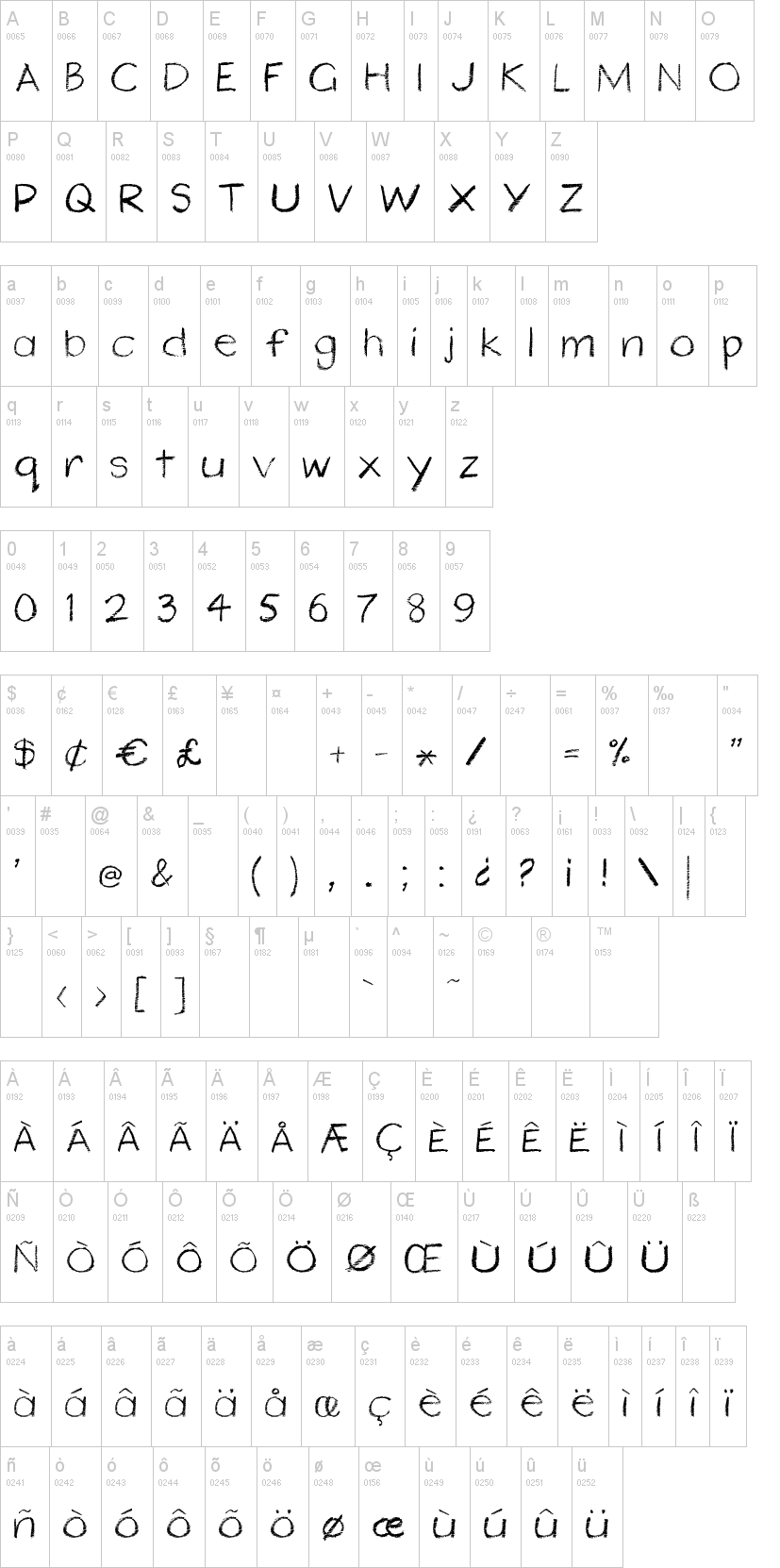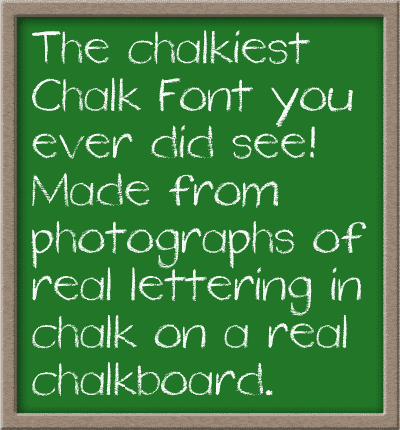
Шрифт Schalk
A font made from photographs of lettering in chalk on a chalkboard. Contains characters to suit languages from Icelandic to Estonian. This is the chalkiest of the chalk fonts!